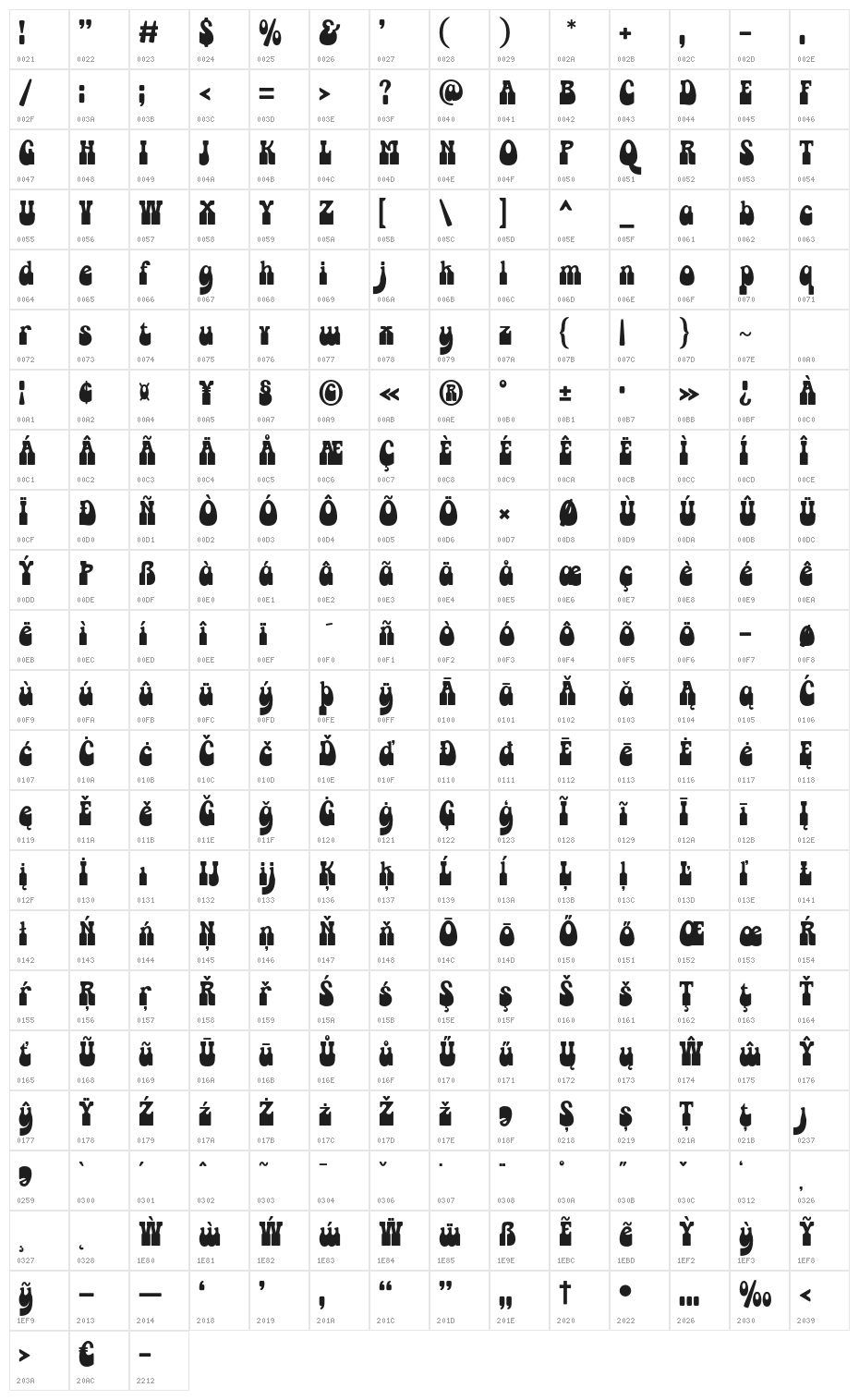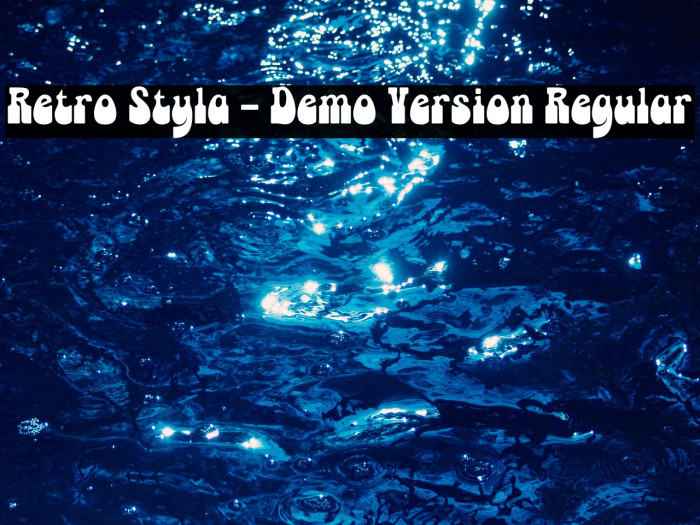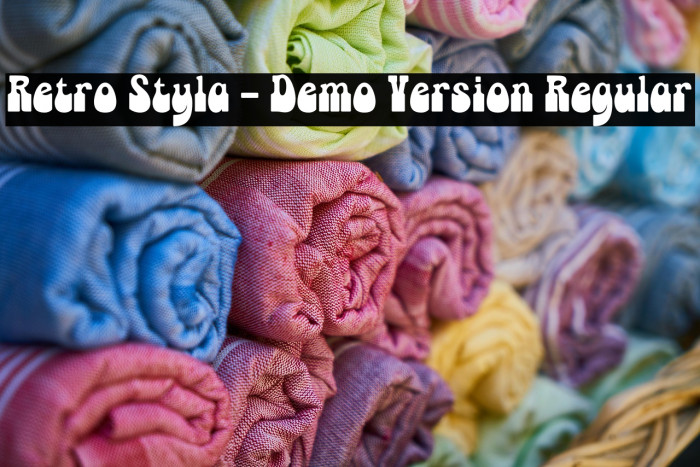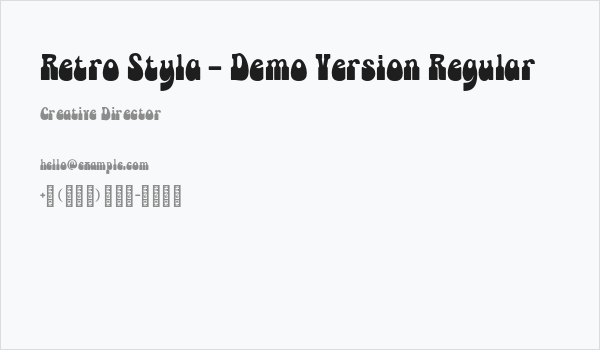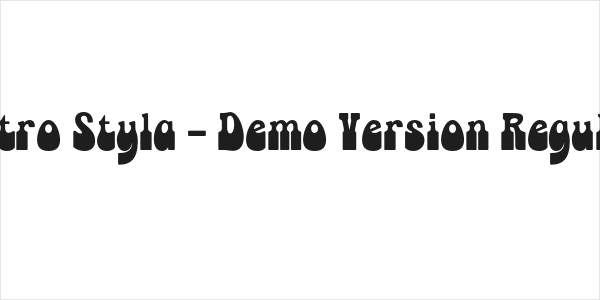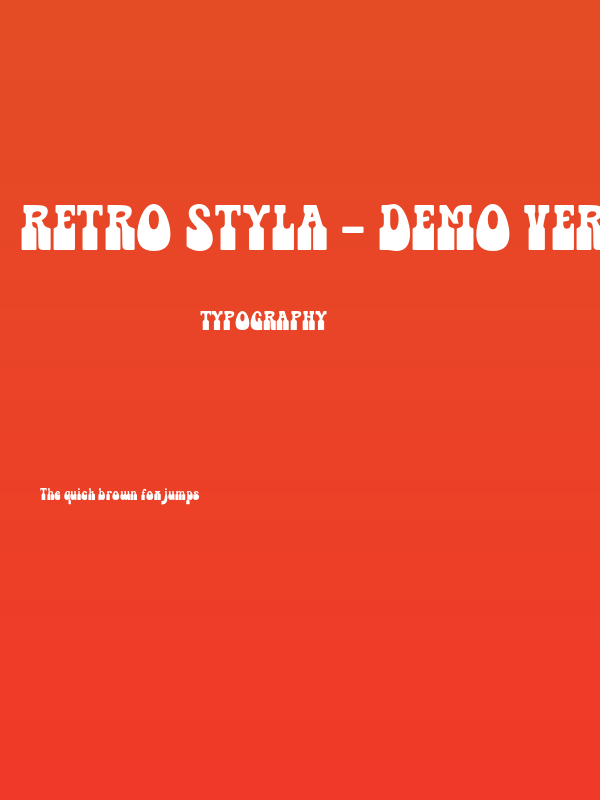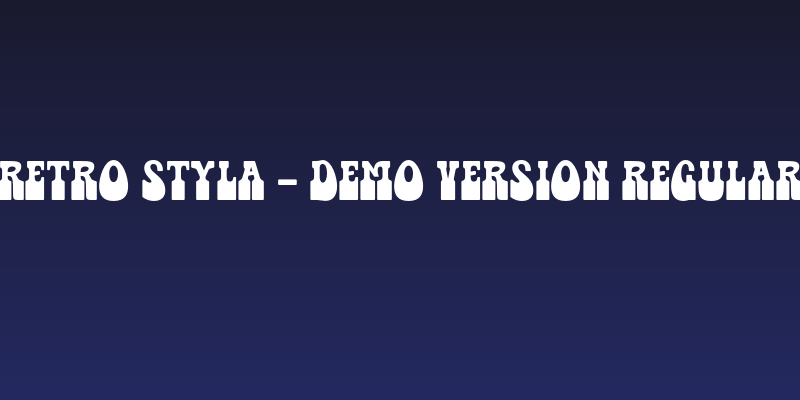
Retro Styla - Demo Version Regular Font
Retro Styla - Demo Version Regular Description
This font features a bold and playful design with a distinctly retro flair. The characters are heavily stylized with thick, blocky forms that evoke a sense of nostalgia. The uppercase letters are particularly striking, with exaggerated curves and unique shapes that make each letter stand out. The lowercase letters maintain the same boldness, providing a cohesive look across the alphabet. The font lacks certain special characters, as indicated by placeholders, which suggests it may be best suited for decorative purposes. The overall style is reminiscent of vintage signage or posters, making it ideal for projects that aim to capture a retro aesthetic.
| Proposed Projects | Ideal for vintage-themed posters, retro branding, and playful graphic design projects. |